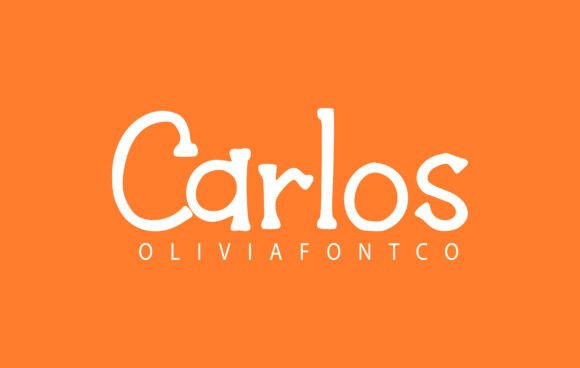
Introducing Carlos Font: The Ultimate Handwritten Font for Creative Expression
Are you looking for a font that can add a touch of romance and elegance to your creative projects? Look no further than Carlos Font, an authentic handwritten font designed to take your ideas to the next level. In this article, we’ll explore the features and benefits of Carlos Font, and how it can be used to elevate your designs.
What is Carlos Font?
Carlos Font is a carefully crafted handwritten font that exudes a sense of romance and sophistication. With its unique and authentic design, this font is perfect for adding a personal touch to your creative projects. Whether you’re looking to create stunning magazine headlines, eye-catching social media graphics, or beautiful wedding invitations, Carlos Font is the perfect choice.
Key Features of Carlos Font
- Authentic Handwritten Design: Carlos Font is designed to mimic the look and feel of handwritten text, giving your projects a personal and unique touch.
- Romantic Touch: This font has a romantic and elegant feel to it, making it perfect for designs that require a touch of sophistication.
- Legible and Versatile: Carlos Font is highly legible and can be used as both title and body text, making it perfect for a wide range of design applications.
- Wide Range of Uses: This font can be used for magazine headlines, social media graphics, branding, wedding invitations, cards, and more.
Benefits of Using Carlos Font
So why choose Carlos Font for your creative projects? Here are just a few benefits of using this amazing font:
- Adds a Personal Touch: With its handwritten design, Carlos Font adds a personal touch to your projects, making them stand out from the crowd.
- Enhances Readability: This font is highly legible, making it easy for your audience to read and understand your message.
- Versatile and Flexible: Carlos Font can be used in a wide range of design applications, from print to digital media.
- Time-Saving: With Carlos Font, you can create stunning designs in no time, saving you time and effort.
Design Applications for Carlos Font
Carlos Font is a versatile font that can be used in a wide range of design applications. Here are some ideas to get you started:
- Magazine Headlines: Use Carlos Font to create stunning magazine headlines that grab attention and draw readers in.
- Social Media Graphics: Add a touch of elegance and sophistication to your social media graphics with Carlos Font.
- Branding: Use Carlos Font to create a unique and memorable brand identity that sets you apart from the competition.
- Wedding Invitations: Make your wedding invitations truly special with Carlos Font, adding a touch of romance and elegance to your big day.
- Cards and Stationery: Use Carlos Font to create beautiful cards and stationery that make a lasting impression.
Tips for Using Carlos Font
Here are some tips for getting the most out of Carlos Font:
- Experiment with Different Sizes: Try using Carlos Font in different sizes to create visual interest and hierarchy in your designs.
- Pair with Other Fonts: Experiment with pairing Carlos Font with other fonts to create a unique and memorable design.
- Use in Combination with Images: Use Carlos Font in combination with images to create stunning visual effects and add depth to your designs.
In conclusion, Carlos Font is an amazing handwritten font that can add a touch of romance and elegance to your creative projects. With its authentic design, legibility, and versatility, this font is perfect for a wide range of design applications. Whether you’re looking to create stunning magazine headlines, eye-catching social media graphics, or beautiful wedding invitations, Carlos Font is the perfect choice. So why wait? Download Carlos Font today and take your creative ideas to the next level!